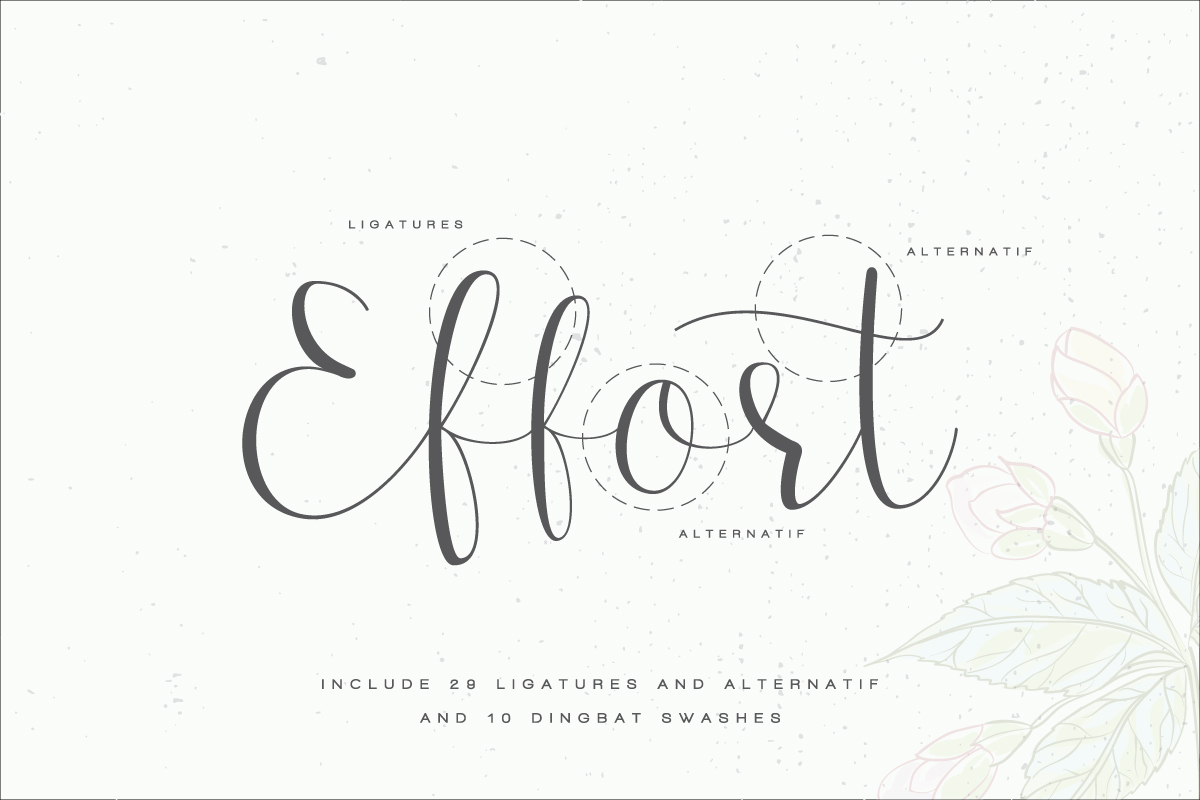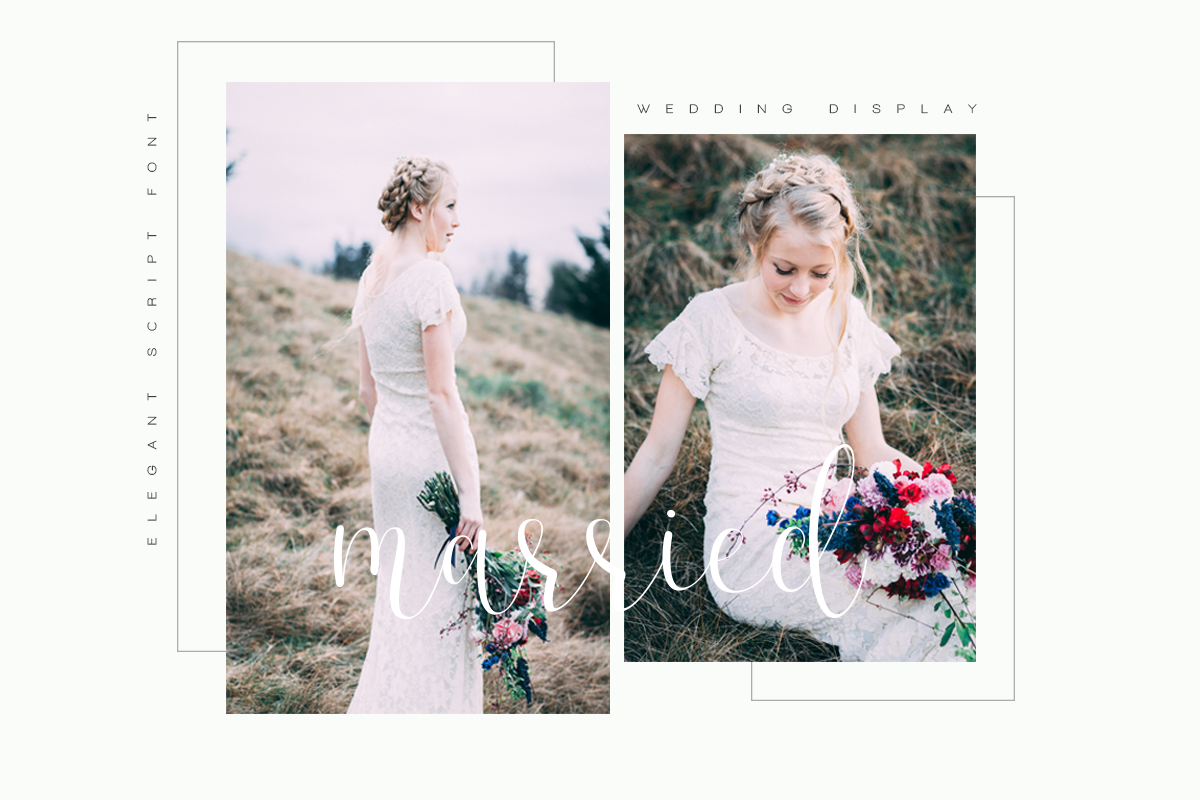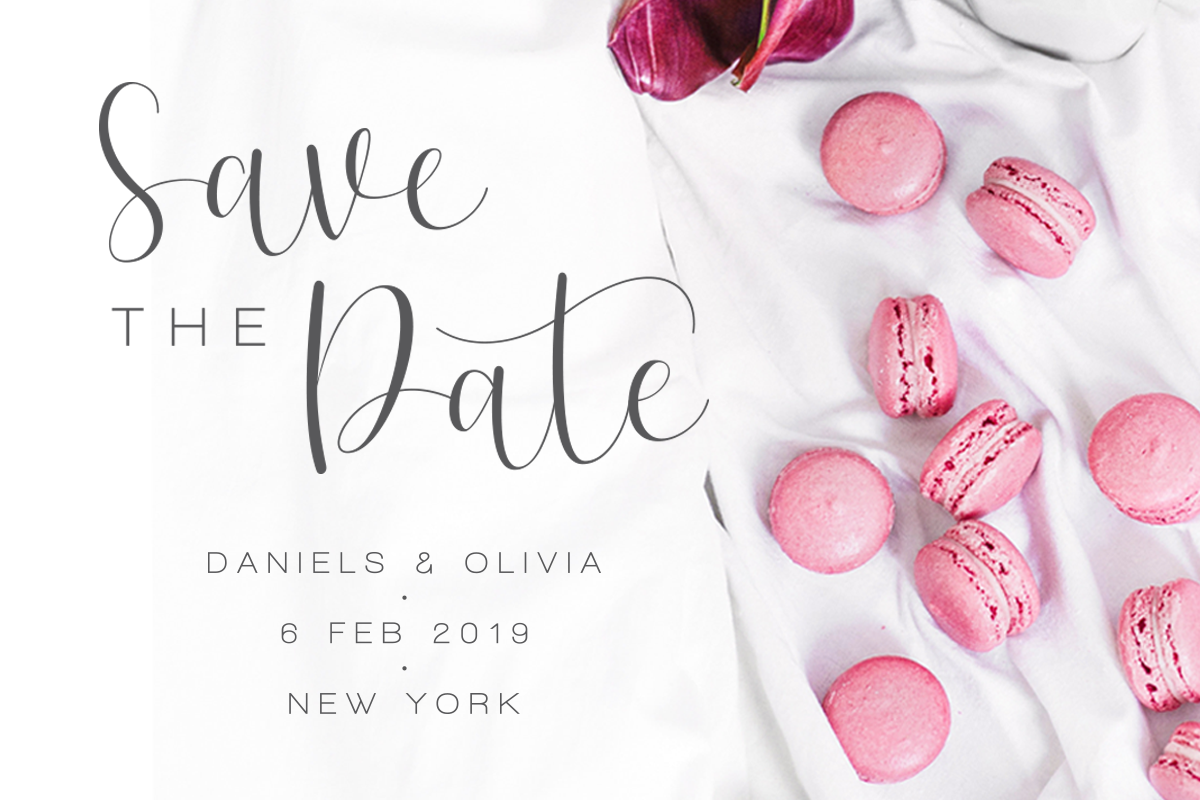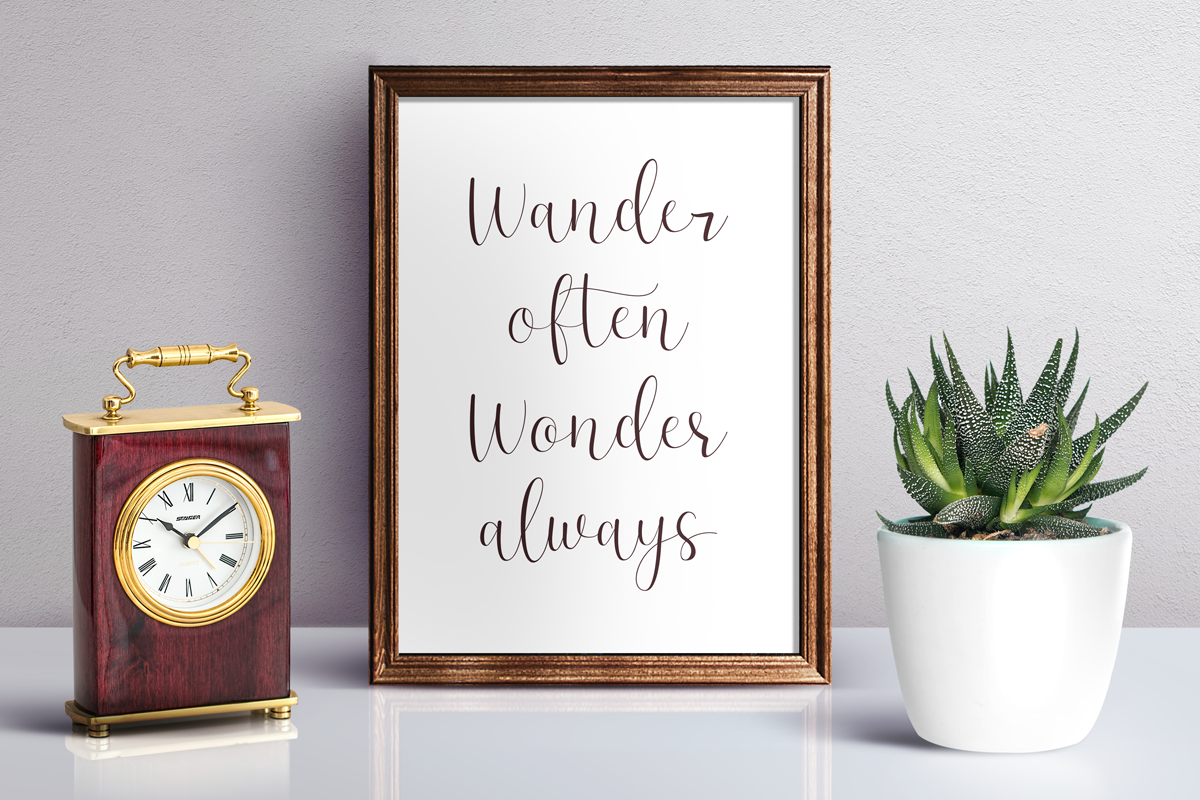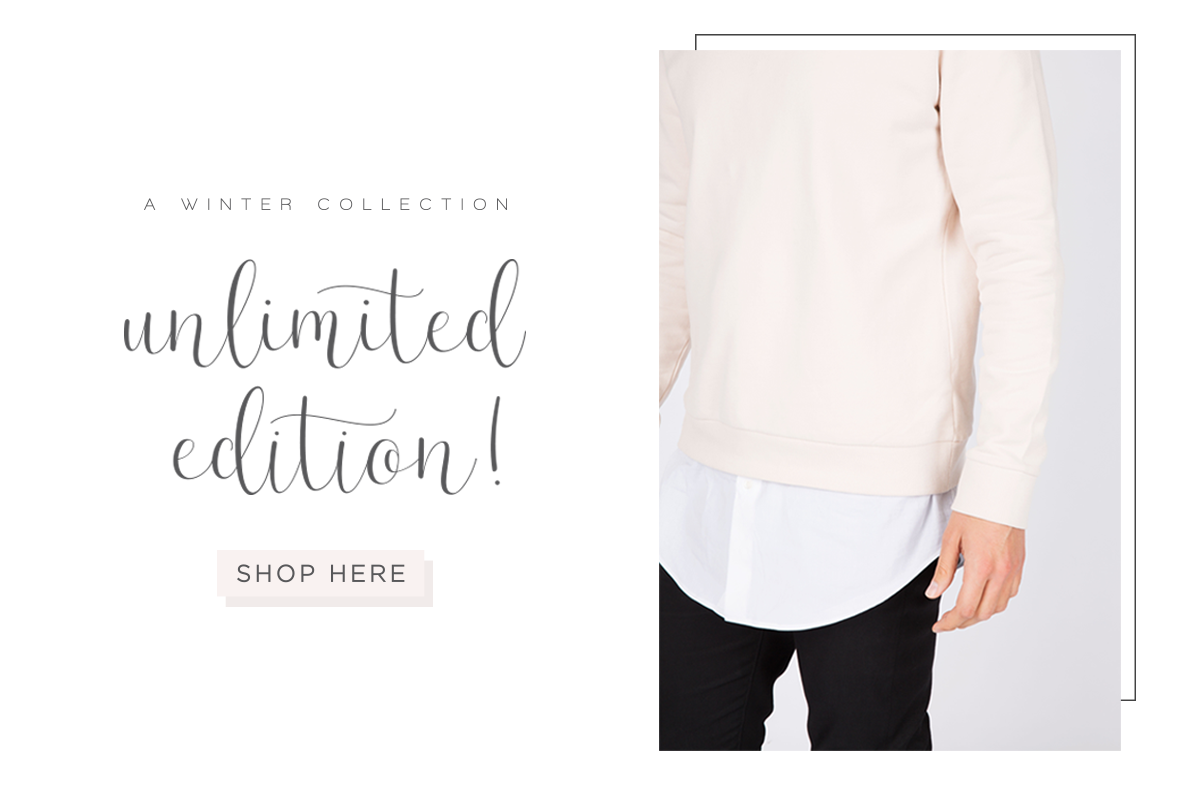
Introducing Effort Font: Elevate Your Designs with Modern Calligraphy
In the world of design, fonts play a crucial role in conveying the tone and aesthetic of a project. For those seeking a touch of elegance and modernity, the Effort font is a game-changer. This stunning modern calligraphy font boasts handwritten, sophisticated flows that are perfect for a variety of design applications, from branding to wedding invitations and cards.
What is Effort Font?
Effort is a carefully crafted font that embodies the essence of modern calligraphy. Its unique, flowing script is designed to add a level of sophistication and refinement to any design. With its elegant strokes and beautiful letterforms, Effort font is ideal for designers and crafters looking to create visually stunning projects.
Key Features of Effort Font
• Modern Calligraphy Style: Effort font features a modern calligraphy style with handwritten, sophisticated flows that are perfect for designs requiring a touch of elegance.
• Versatile: This font is versatile and can be used for a wide range of design applications, including branding, wedding invites, cards, and more.
• Elegant and Refined: Effort font’s elegant strokes and beautiful letterforms make it perfect for designers and crafters seeking to add a level of sophistication to their designs.
Effort font is designed with designers and crafters in mind. Whether you’re creating a brand identity, designing wedding invitations, or crafting bespoke cards, this font is sure to elevate your designs. Its modern calligraphy style and elegant flows make it perfect for:
• Branding: Use Effort font to create a sophisticated brand identity that sets you apart from the competition.
• Wedding Invites and Cards: Add a touch of elegance and romance to your wedding designs with Effort font.
• Stationery and Packaging: Use Effort font to create beautiful stationery and packaging that reflects your brand’s personality.
Why Choose Effort Font?
With so many fonts available, why choose Effort font? Here are just a few reasons why designers and crafters love this stunning modern calligraphy font:
• Unique and Distinctive: Effort font’s unique, flowing script sets it apart from other fonts, making it perfect for designers seeking to create distinctive designs.
• Elegant and Sophisticated: This font’s elegant strokes and beautiful letterforms make it perfect for designs requiring a level of sophistication and refinement.
In conclusion, Effort font is a stunning modern calligraphy font that is perfect for designers and crafters seeking to add a touch of elegance and sophistication to their designs. With its unique, flowing script and elegant strokes, this font is versatile and can be used for a wide range of design applications. Whether you’re creating a brand identity, designing wedding invitations, or crafting bespoke cards, Effort font is sure to elevate your designs and set you apart from the competition.